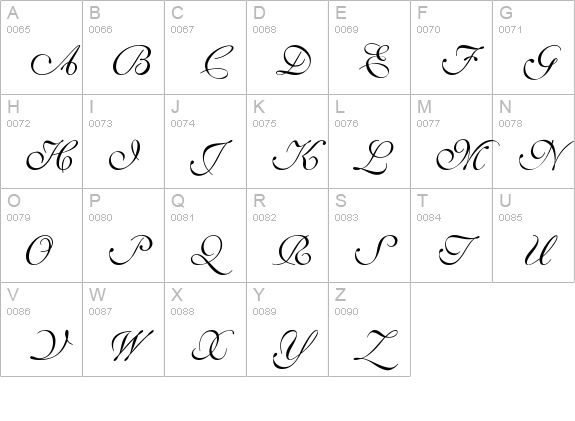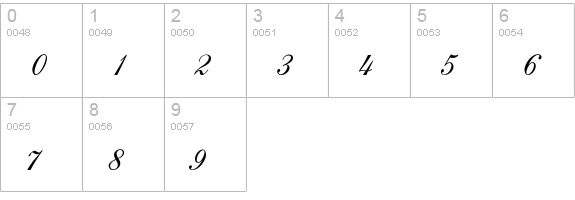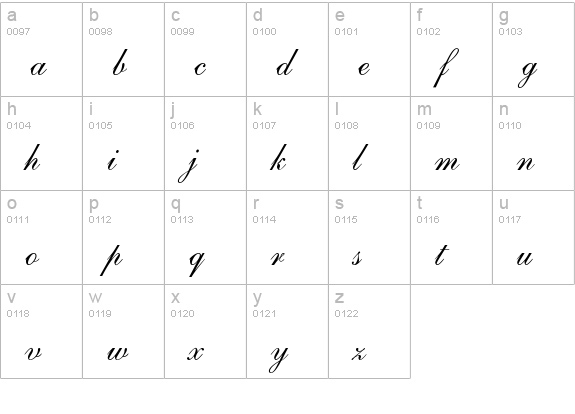
ILS Script Font Details
ILS Script font is a stunning and elegant typeface that adds a touch of sophistication to any design project. Its graceful curves and delicate strokes make it perfect for creating beautiful logos, wedding invitations, and branding materials. The flowing and organic nature of this font gives it a sense of movement and grace, making it ideal for designs that require a touch of elegance. ILS Script font is not only visually appealing but also highly versatile. It can be used in a variety of contexts, from traditional to modern designs. Whether you are designing for a high-end fashion brand or a whimsical wedding invitation, this font is sure to elevate your design to the next level. One of the best things about ILS Script font is that it is free. Yes, you read that right. This stunning typeface is freely available to download at FontsMarket.com. This means that you can add a touch of elegance and sophistication to your designs without breaking the bank. So why wait? Download ILS Script font today and elevate your designs to new heights. Whether you are a professional graphic designer or a DIY enthusiast, this font is sure to become your go-to choice for adding a touch of elegance and style to your projects. Don't miss out on this incredible opportunity to enhance your designs with this beautiful and free font.